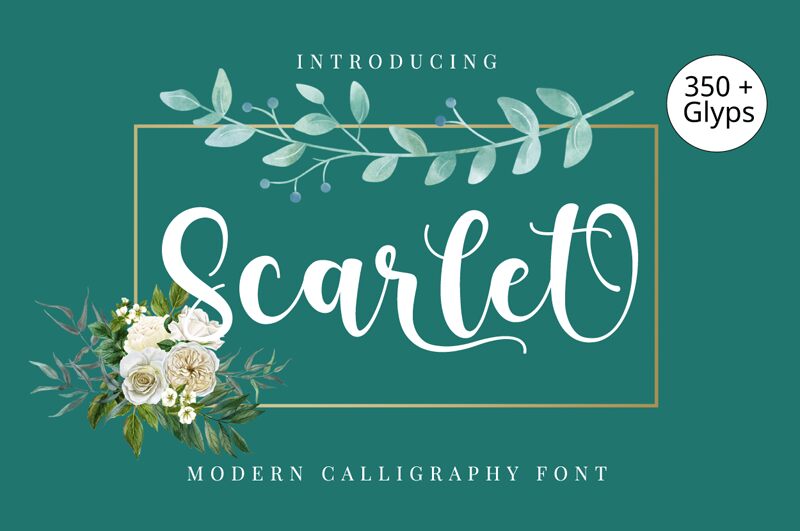
Scarlet is a stunning calligraphy font designed by Sugi Harto. With its semi-bold weight, it strikes the perfect balance between elegance and readability. Scarlet is suitable for a wide range of projects, including wedding invitations, branding materials, logos, and much more. The fluid strokes and delicate curves of this font make it an ideal choice for any project that requires a touch of sophistication and refinement. Whether you're looking to add a touch of class to your next design project or create something truly unique, Scarlet has everything you need to make your vision come to life.